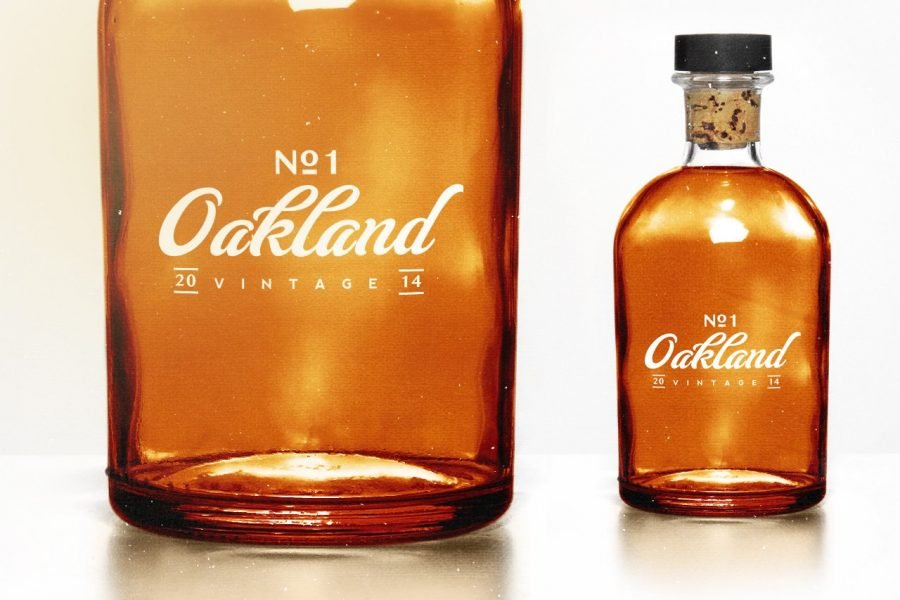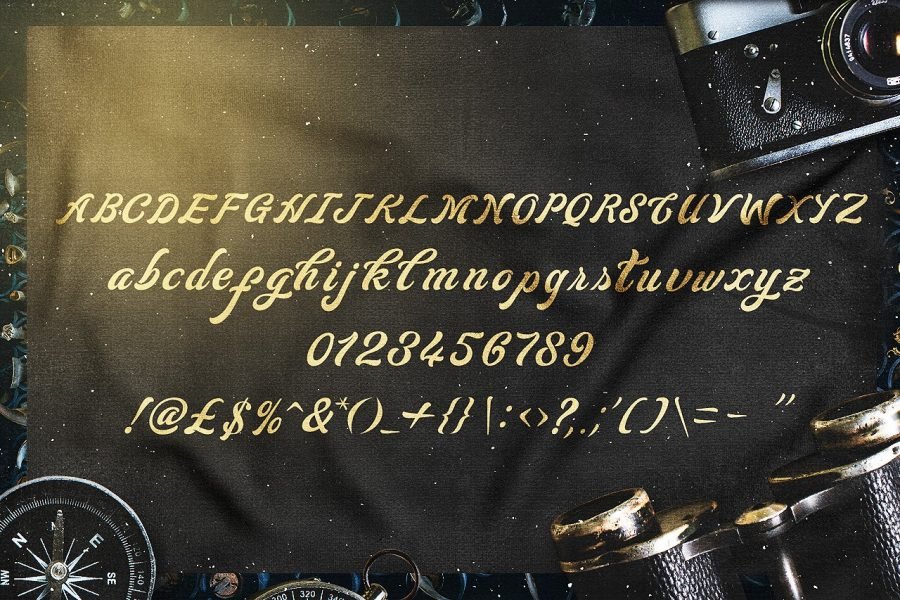
Get creative with the Sonophone Script Typeface by Layerform Design Co
Sonophone Script – Typeface
Introducing Sonophone
Sonophone is a beautifully crafted Script Font that provides a sense of vintage elegance to your typographic artwork. Each glyphs has been designed with a unique italic stance, lending itself to Logo Design and Branding.